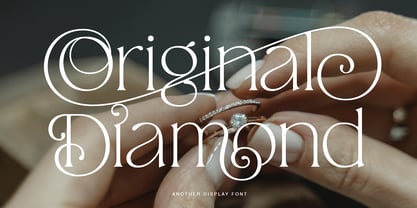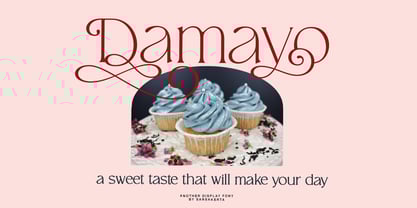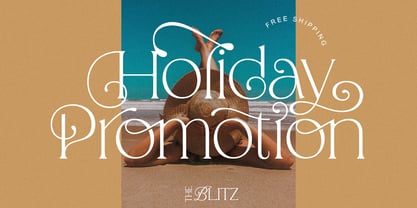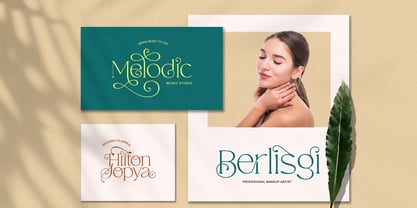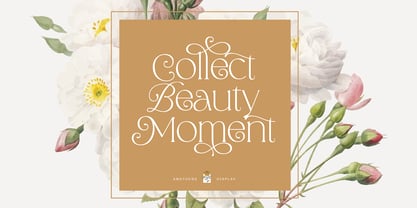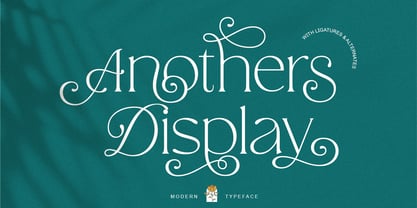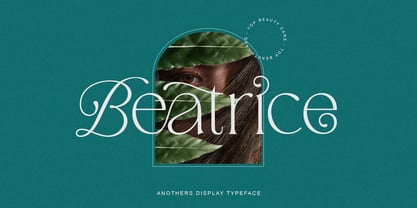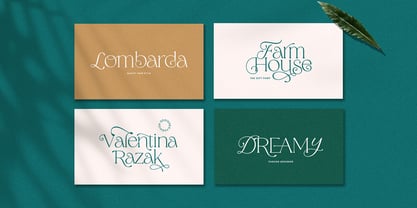
Anothers Display
by Sansakerta
The Anothers Display Font Family was designed by Dean Nugraha and published by Sansakerta. Anothers Display contains 1 styles.
Another DIsplay is a special modern stylistic style font. Made with accurate accuracy with beautiful curves. With alternative characters and ligatures that make your work very special. It is perfect for branding design, logos, greeting cards, title packaging. and other designs. Immediately use our fonts to make your work even more amazing.
Another Display is also included full set of:
• uppercase and lowercase letters
• multilingual support
• numerals
• punctuation
• Ligature Characters
• Stylistic Alternates Chararacter